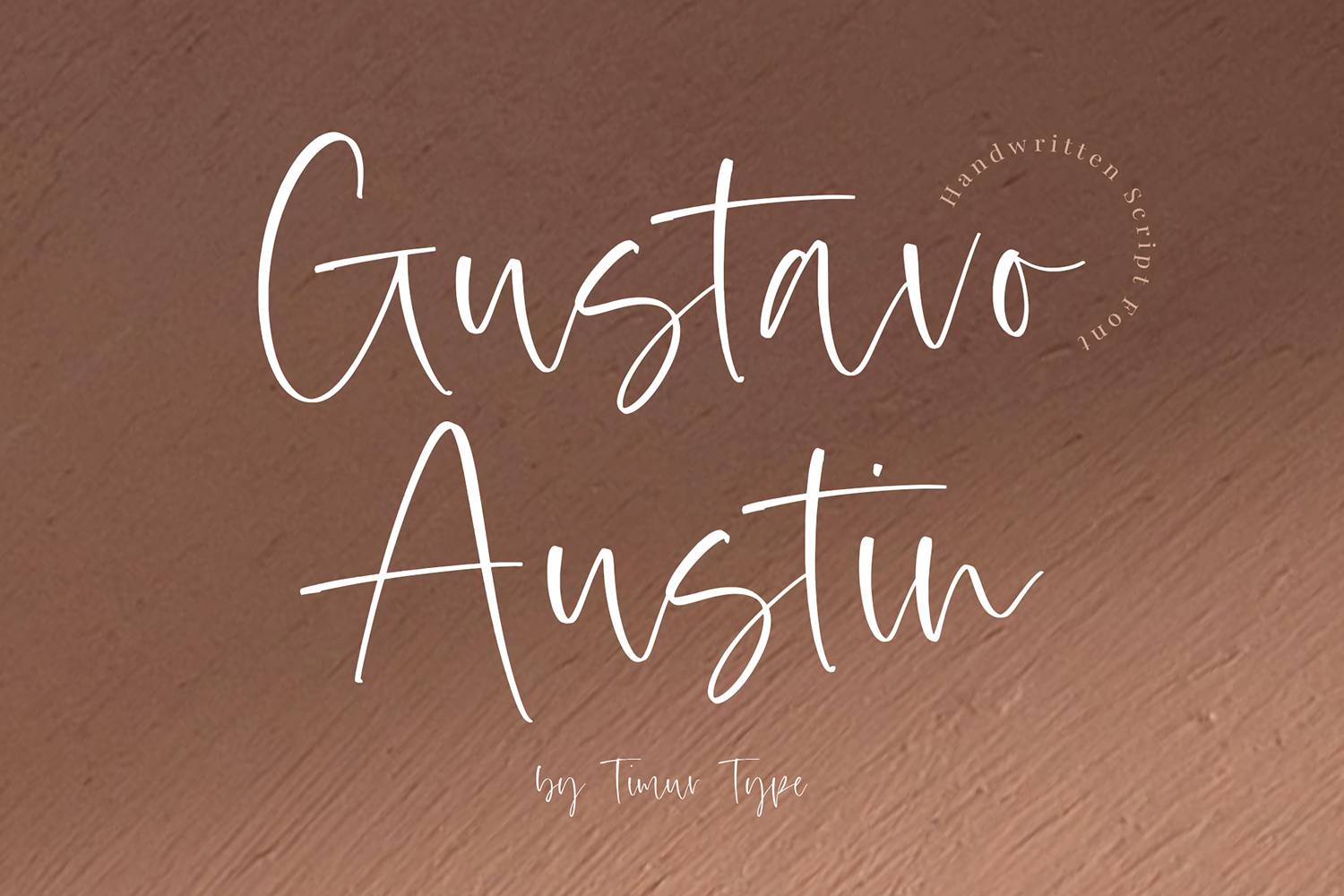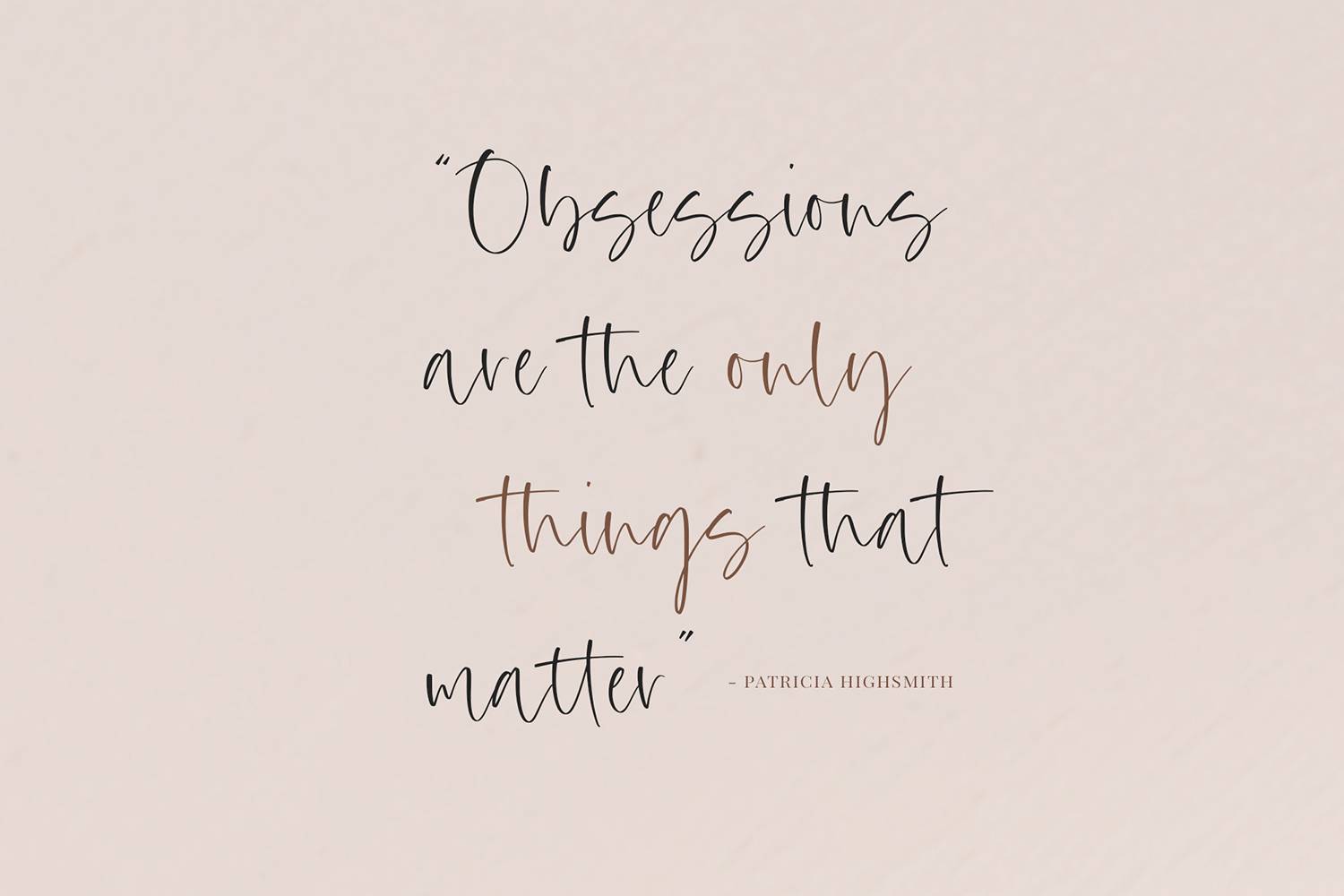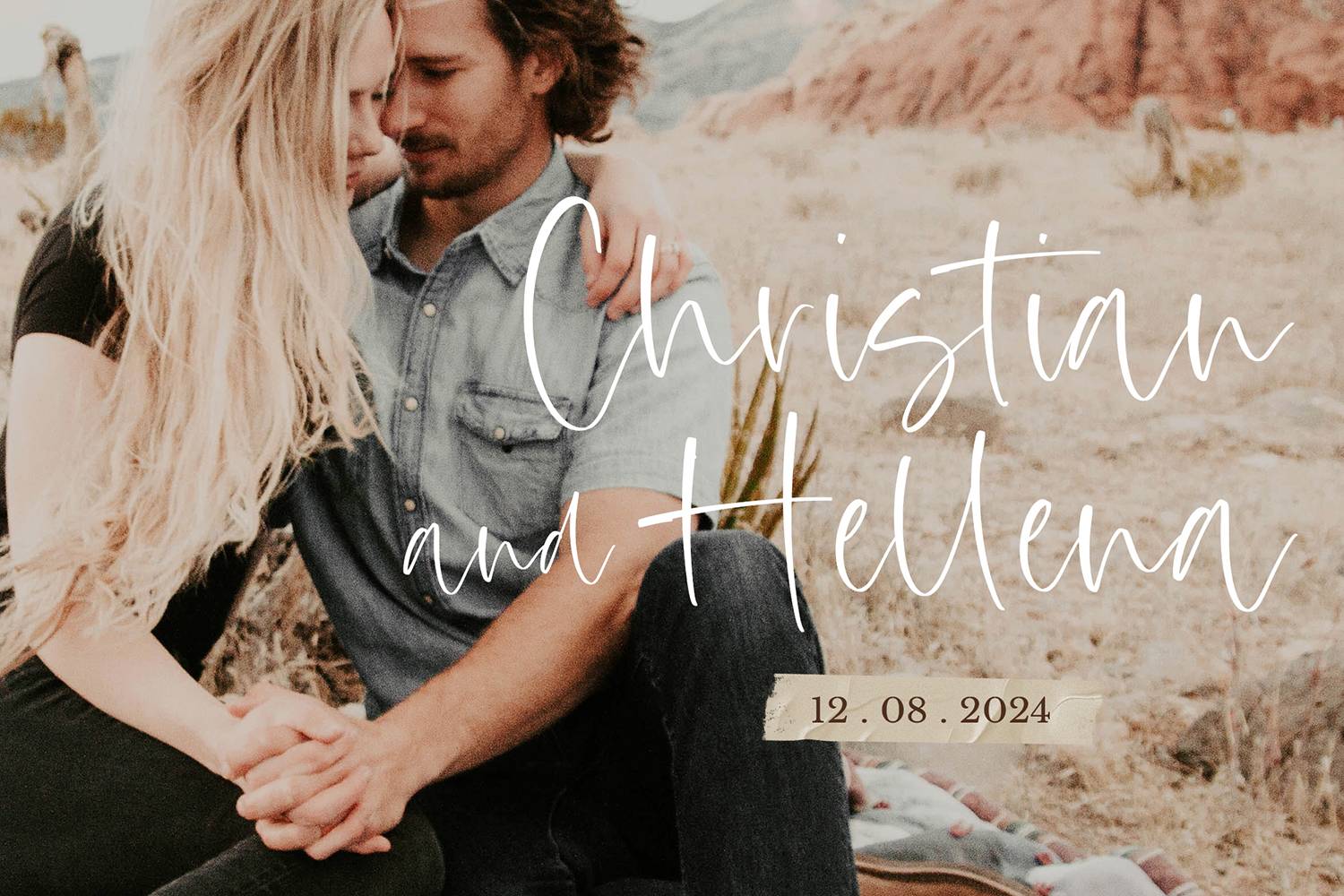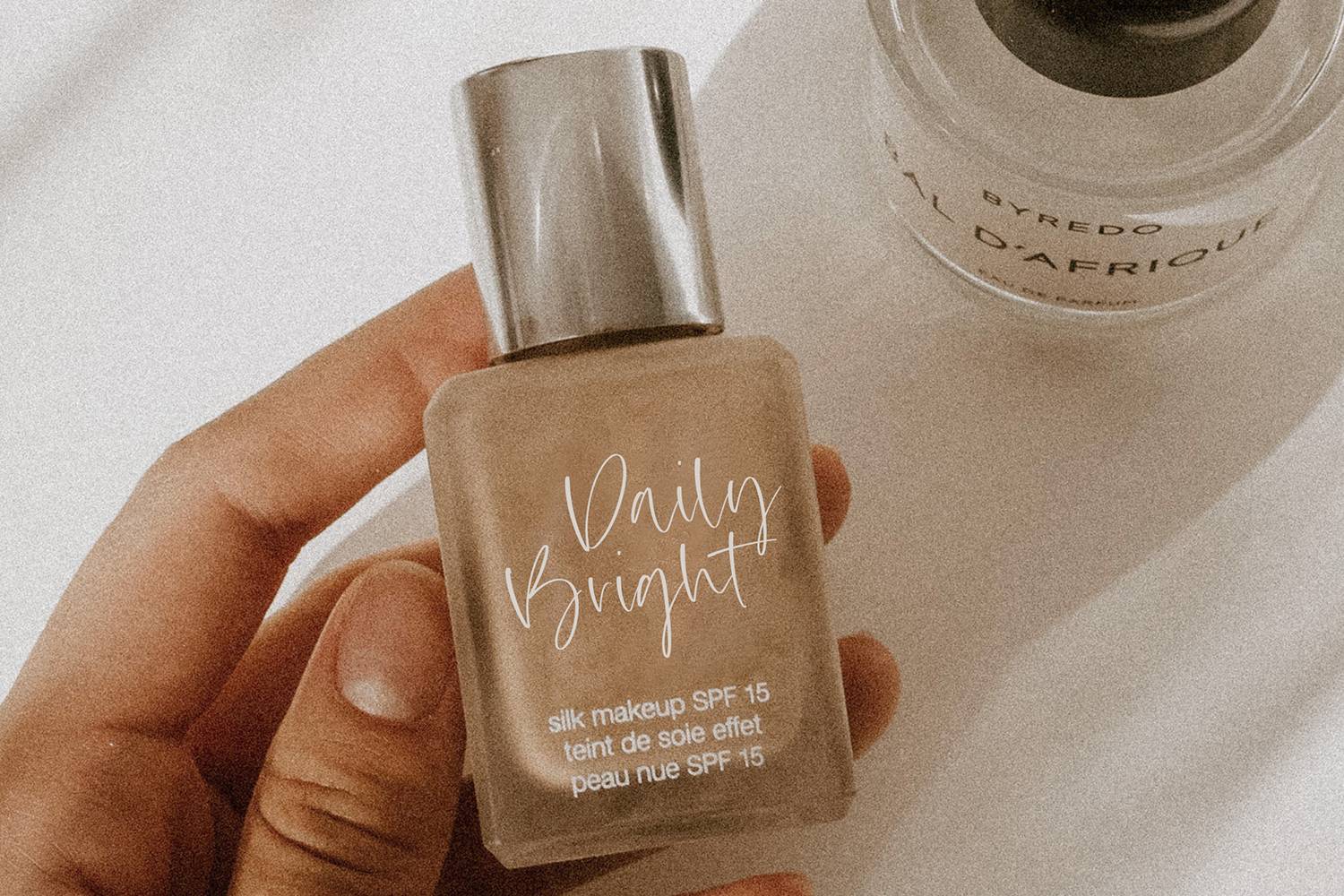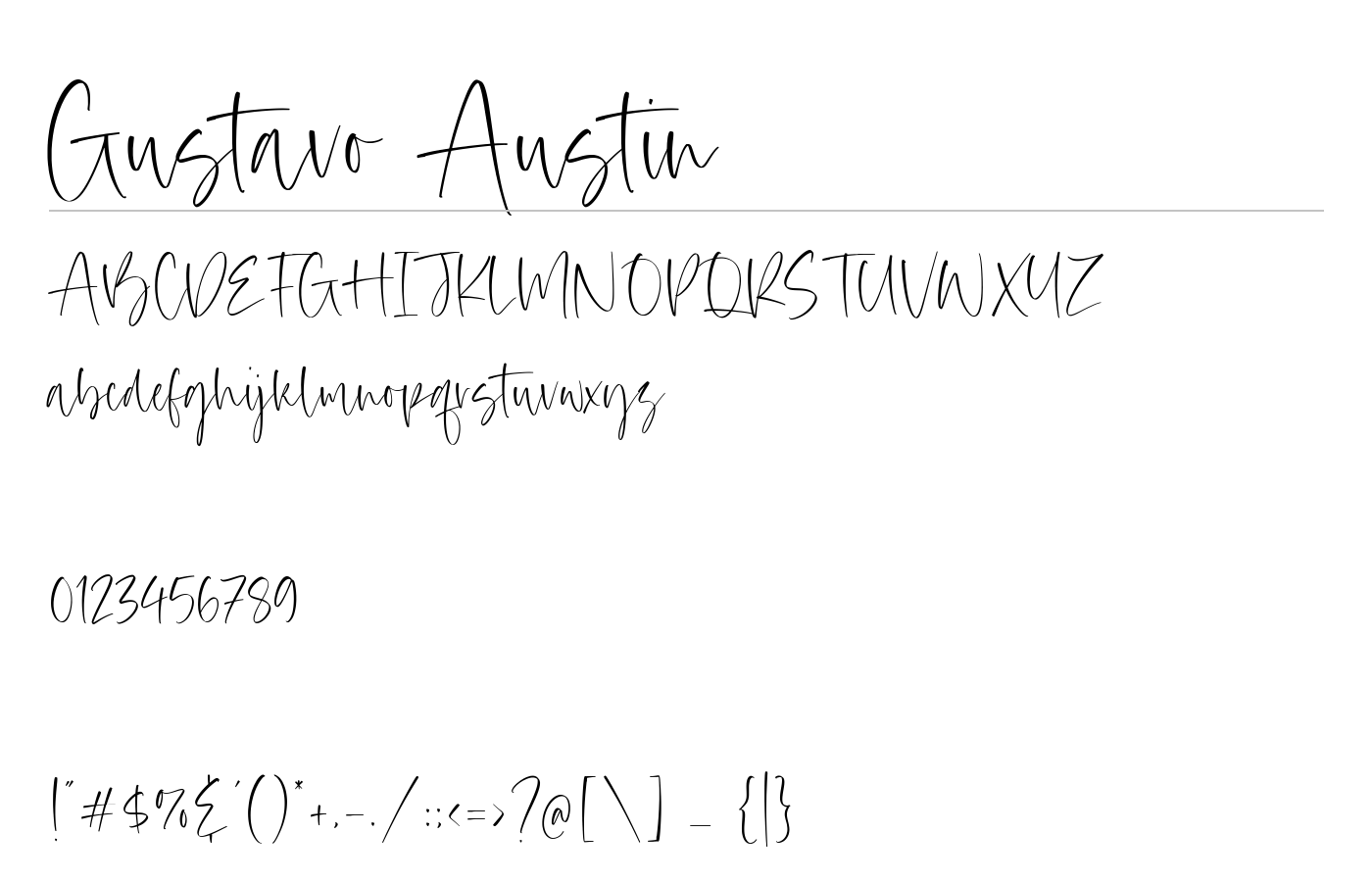
Gustavo Austin is a delicate, handwritten script font featuring tall, slender letterforms with a casual yet refined feel. Its fine, flowing strokes evoke a personal, warm touch perfect for creative projects, invitations, and branding that seeks a friendly, approachable elegance. This font works well for logos, social media graphics, and other designs where a light, artistic handwriting style is desired.
Gustavo Austin Font
About Gustavo Austin Font
| Font family | Gustavo Austin Font |